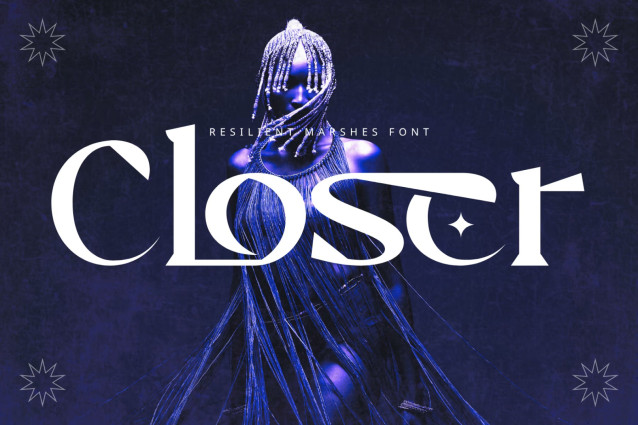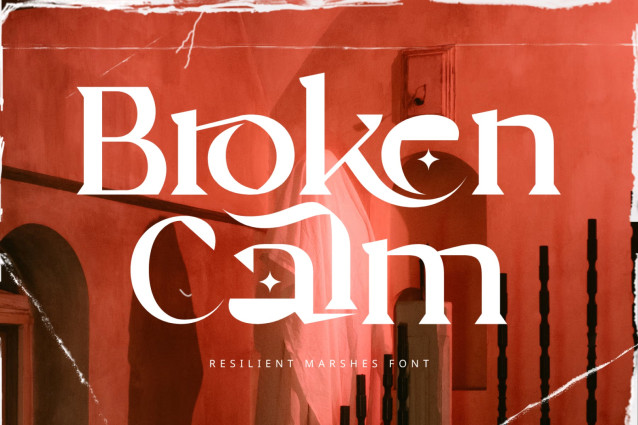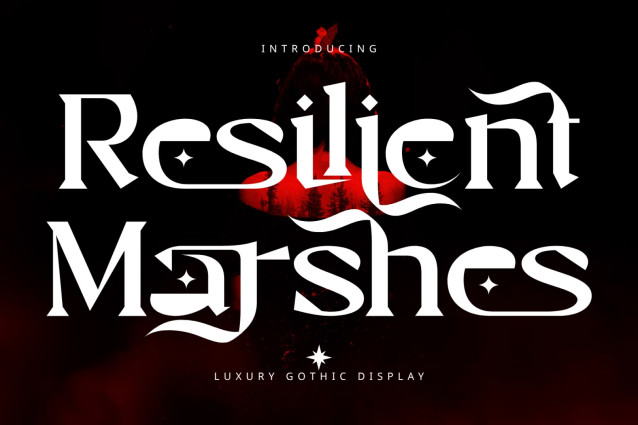
Resilient Marshes – Fantasy Font
Resilient Marshes – Fantasy Font is a decorative gothic serif display font crafted to bring elegance, mystery, and artistic character into your designs. Featuring beautifully sculpted letterforms, high-contrast strokes, graceful curves, and unique ornamental details, this typeface creates a captivating visual presence that feels both timeless and imaginative. The decorative star accents and flowing swashes add a magical touch, while the strong serif structure ensures excellent readability and visual balance.
Designed for projects that demand sophistication and personality, Resilient Marshes is perfect for fantasy book covers, gaming titles, luxury branding, gothic-inspired logos, fashion editorials, movie posters, music artwork, premium packaging, event invitations, and creative visual identities. Its combination of classic craftsmanship and decorative flair makes it an exceptional choice for designers seeking a font that communicates elegance, mystery, and unforgettable style.